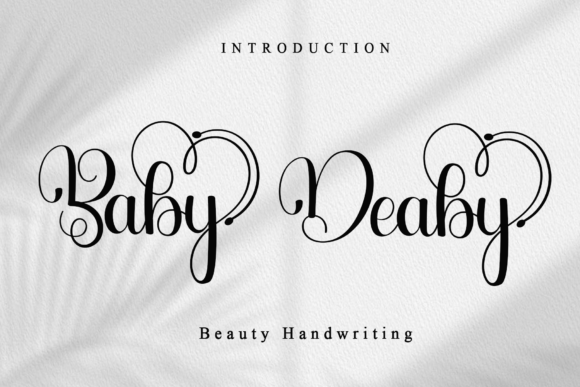
Baby Deaby Font: Elevate Your Designs with a Timeless Classic
In the world of typography, few fonts manage to capture the essence of both modernity and classic elegance. Baby Deaby Font is one such exceptional typeface that brings together the charm of timeless calligraphy with a contemporary twist. This stylish handwritten font is designed to add a touch of sophistication and beauty to any project, making it a versatile choice for designers and creatives.
Baby Deaby: A Contemporary Take on Classic Calligraphy
Baby Deaby is not just another font; it’s an experience. Inspired by the impeccable forms of classic calligraphy, this font brings a fresh and modern vibe to the table. Its design is meticulously balanced, ensuring that each letter and word flows seamlessly into the next, creating a harmonious visual rhythm. This balance and variation are what set Baby Deaby apart, making it a standout in the world of typography.
The font’s contemporary atmosphere is one of its most striking features. In an era where design trends are constantly evolving, Baby Deaby offers a breath of fresh air. Its clean lines, elegant curves, and perfectly adjusted spacing make it a versatile tool for a wide range of design projects, from branding and advertising to packaging and digital media.
Key Features of Baby Deaby Font
- Handwritten with a Personal Touch: Baby Deaby boasts a handwritten quality that gives it a personal and intimate feel. Each letter is crafted with care, ensuring that the font looks approachable and engaging.
- Contemporary yet Classic: The font strikes the perfect balance between modern design principles and classic calligraphic elegance. This blend makes it suitable for projects that require a touch of sophistication and a dash of modernity.
- Balanced and Varied: The design of Baby Deaby focuses on balance and variation. The font includes a range of characters and ligatures that allow for creative freedom and flexibility in design.
- Impeccable Form: Every aspect of Baby Deaby’s design is meticulously considered, from the shape of the letters to the spacing between them. This attention to detail ensures that the font looks polished and professional in any context.
Where to Use Baby Deaby Font
The versatility of Baby Deaby makes it suitable for a wide range of design projects. Here are some of the best use cases for this beautiful font:
- Branding and Logotypes: Use Baby Deaby to create elegant and memorable brand identities. Its unique style can help your brand stand out in a crowded market.
- Advertising and Marketing Materials: Whether you’re designing a brochure, flyer, or ad campaign, Baby Deaby can add a touch of class and sophistication to your materials.
- Packaging Design: Make your product packaging more appealing with Baby Deaby. Its elegant look can enhance the perceived value of your products.
- Digital Media: From website headers to social media graphics, Baby Deaby can elevate your digital content. Its clean and modern look works well on screens of all sizes.
- Stationery and Invitations: Add a personal touch to your stationery, invitations, and greeting cards with Baby Deaby. Its handwritten feel makes it perfect for more intimate and special occasions.
Tips for Using Baby Deaby Effectively
To get the most out of Baby Deaby, consider the following tips:
- Pair with Complementary Fonts: While Baby Deaby is beautiful on its own, it can also be paired with other fonts to create interesting contrasts. Choose fonts that complement its elegant and modern feel.
- Adjust Size and Color Thoughtfully: The size and color of the font can dramatically affect its impact. Use larger sizes for headings and smaller sizes for body text, and experiment with colors that match your brand’s palette.
- Experiment with Ligatures: Baby Deaby includes ligatures that can add a unique touch to your text. Don’t be afraid to experiment with these to find the perfect look for your project.
Baby Deaby Font is a stylish and versatile typeface that brings a touch of timeless elegance to the world of contemporary design. Its impeccable form, balanced and varied design, and handwritten feel make it a valuable addition to any designer’s toolkit. Whether you’re working on branding, advertising, packaging, or digital media, Baby Deaby can help elevate your projects to new heights. With its wide range of applications and ease of use, it’s an excellent choice for anyone looking to add a bit of sophistication and charm to their designs.